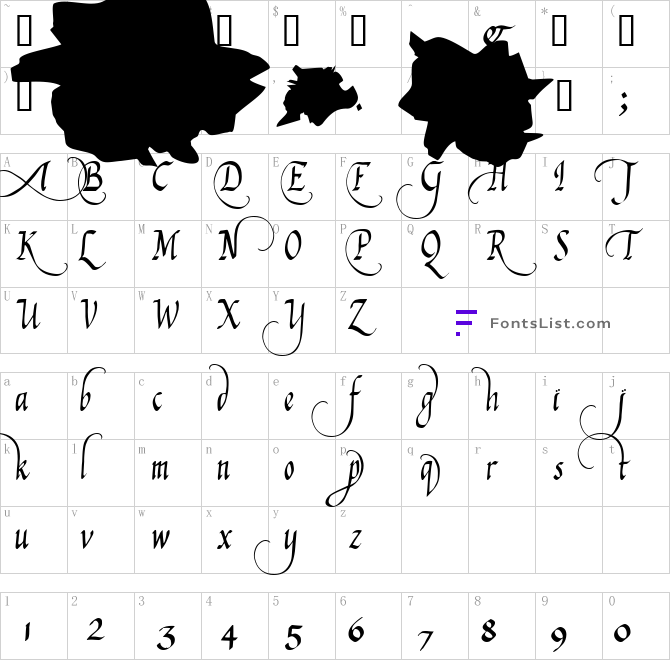
- Font Name:Abdiel
Abdiel.ttf is a very beautiful artistic font, Abdiel.ttf is widely used in the design and printing of various books and pictures,Abdiel.ttf has a strong visual impact,Abdiel.ttf is a commonly used font in newspapers, magazines and books, and is used in posters, e-commerce Poster design, store design, logo design, font design and other fields.Abdiel.